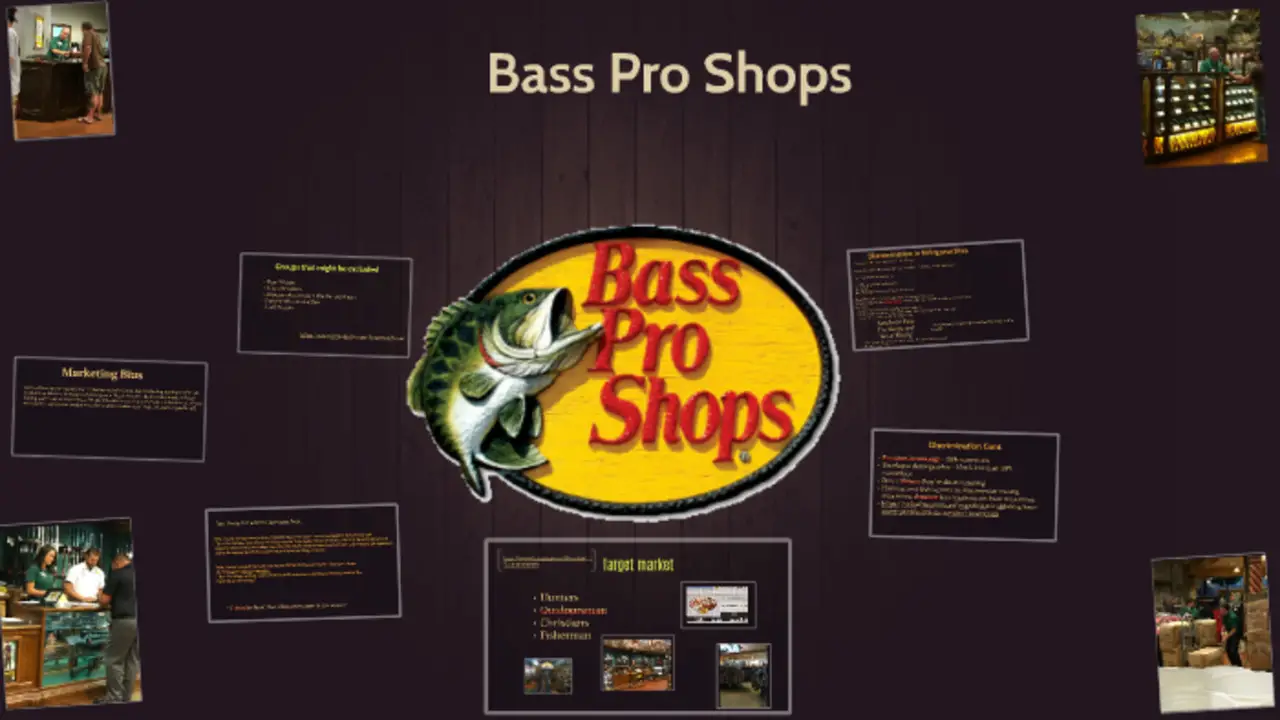
Bass Pro Shop Font Alternatives – You Must Know That
Bass Pro Shop is a well-known brand offering customers outdoor gear and equipment. One of the most recognizable features of the brand is its font, which has become synonymous with the great outdoors.
The font used by Bass Pro Shop is a custom-designed typeface that was created specifically for the brand. If you want to use a similar font, try Arial, Helvetica, or Verdana. These fonts are all identical to the Bass Pro Shop font, giving your text a similar look.
If you want to use a completely different font, you can try using any sans-serif font. Sans-serif fonts are simple and clean and can be an excellent contrast to the Bass Pro Shop font. Some good sans-serif fonts include Futura, Gotham, and Avenir. Ultimately, the best font you can use is the one you think looks best. Experiment with different fonts and see which one you like the best.
What Are Some Good Bass Pro Shop Font Alternatives?
Bass Pro Shops does not have an alternative font. Bass Pro Shop, the popular outdoor retailer, uses a bold and distinctive font for its logo and branding. The font is “Bass Pro Shops Outdoor World,” It features thick, blocky lettering that conveys a sense of strength and ruggedness. The font is designed to evoke images of the great outdoors, with its sharp angles and rough edges reminiscent of the jagged peaks of mountains or the textured bark of trees.
This font has become synonymous with the Bass Pro brand, instantly recognizable to customers passionate about outdoor pursuits. Whether you’re shopping for fishing gear or camping equipment, the Bass Pro Shops Outdoor World font reminds you that you’re in good hands with a company that knows and loves the great outdoors just as much as you do.
As much as we love Bass Pro Shops, their font choice leaves much to be desired. We have a few good options if you’re looking for a Bass Pro Shops font alternative.
1. Helvetica
Helvetica is a classic sans-serif font that would look great on any Bass Pro Shops sign or advertisement. It’s clean and modern and would significantly improve the current font choice.
If you’re looking for an excellent alternative to the Bass Pro Shop font, Helvetica is a popular and versatile option. This classic sans-serif font has been around for over 60 years and is known for its clean lines and legibility. It’s an excellent choice for branding and design projects where readability is critical. Additionally, it can be customized with different weights and styles to suit your specific needs.
Whether you’re designing a logo or creating marketing materials for your outdoor or hunting business, Helvetica can provide a professional and modern look while still maintaining the rugged feel of the Bass Pro brand.
2. Arial
Arial is another sans-serif font that would be an excellent alternative to Bass Pro Shops’ current font. It’s similar to Helvetica, but it has a slightly softer feel.
Regarding finding a font alternative for Bass Pro Shop, Arial may be a good option. Arial is a sans-serif font similar in style to the Bass Pro Shop font. It has a clean and modern look, making it suitable for various design projects. Additionally, Arial is widely available and can be found on most computers and devices.
This means you won’t have to worry about downloading or purchasing additional fonts. However, it is essential to remember that Arial may not be an exact match for the Bass Pro Shop font, so you may need to make adjustments to ensure your design looks its best.
3. Times New Roman
Times New Roman is a classic serif font, and it would be a good choice for Bass Pro Shops if they’re looking for a more traditional font. If you’re looking for an excellent alternative to the Bass Pro Shop font, Times New Roman is a great option. This classic serif font has been a staple in typography for decades and is known for its readability and elegance.
It’s also versatile for various design applications, from print materials to digital graphics. Plus, since it’s a widely recognized font, using Times New Roman can help ensure your audience quickly understands your message. So if you need a reliable, easy-to-read font that looks sophisticated and professional, try Times New Roman as an alternative to the Bass Pro Shop font.
4. Garamond
Garamond is a beautiful serif font that would add a touch of class to any Bass Pro Shops sign. It’s a bit more ornate than Times New Roman, but it’s still a classic font. If you’re looking for an excellent alternative to the Bass Pro Shop font, Garamond is a great option. This classic serif font has been around since the 16th century and is known for its elegance and readability.
Its timeless quality makes it perfect for branding and marketing materials, and its versatility means that it can be used in various contexts. Whether creating a logo, designing a website, or putting together a brochure, Garamond is an excellent choice to help your text stand out and impact. So if you’re tired of using the same old fonts, try Garamond and see how it can elevate your design work.
4.What Are Some Versatile Bass Pro Shop Font Alternatives?
Ans: There are many versatile bass pro shop font alternatives. Some good examples include Arial, Helvetica, and Times, New Roman. These fonts are all very versatile and can be used for various purposes.
5.What is the font used for the Bass Pro Shop logo?
Ans: The font used for the Bass Pro Shop logo is a custom-designed typeface and, therefore, unavailable for commercial use. However, similar fonts like Impact, Helvetica Bold, and Knockout may be used as alternatives.